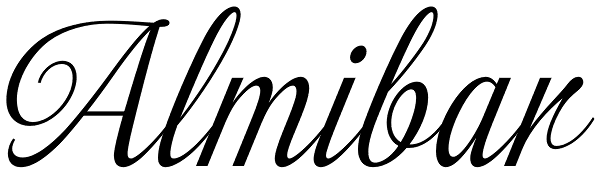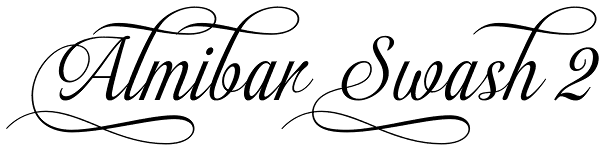
Almibar
Almibar is a delicate and very elegant connected script font. Its classic style is perfect to be applied in any type of formal pieces such invitations, labels and menus.